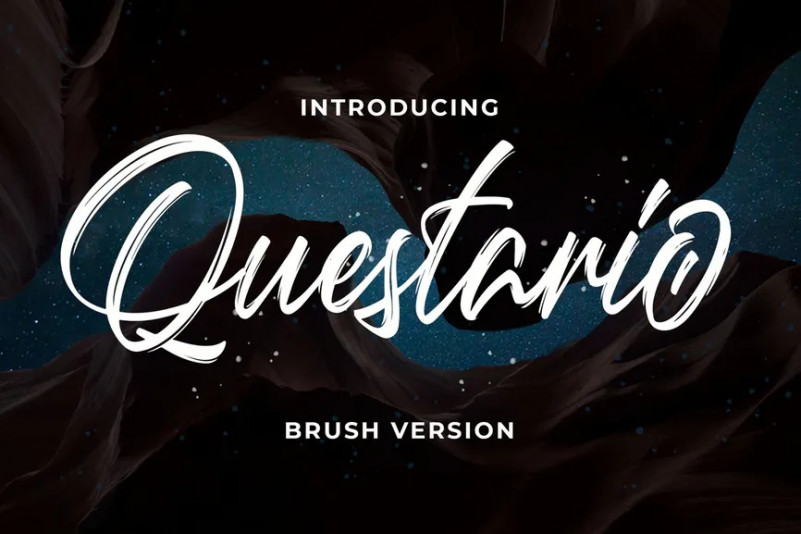
Questario Font
Introducing of our new product the name is Questario Brush Style Font. Questario Brush inspired by Brush calligraphy this font is a fun theme very good for signature, poster, fashion, wedding, branding etc